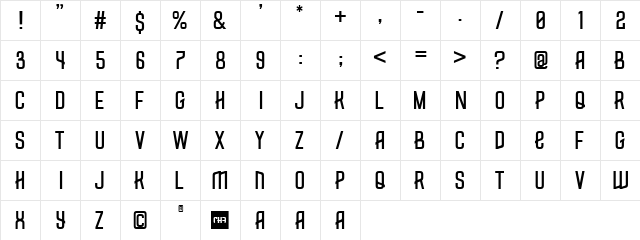
Measly Condensed SemiBold
| Foundry | Charlie Edmiston |
| Designer | Charlie Edmiston |
Design Context for Measly Typeface
Measly offers clean, dependable letterforms without strong stylistic allegiance, making it a practical choice for designers who need flexibility. Its bold stroke weight gives it real presence on the page. Its narrow stance lets it pack a punch even in space-constrained designs.